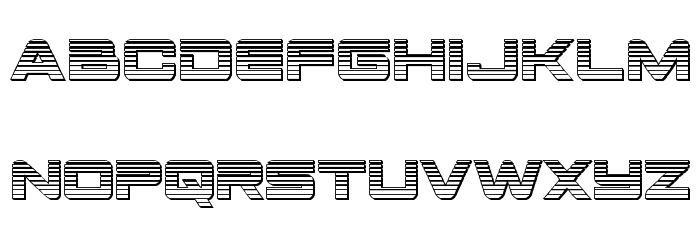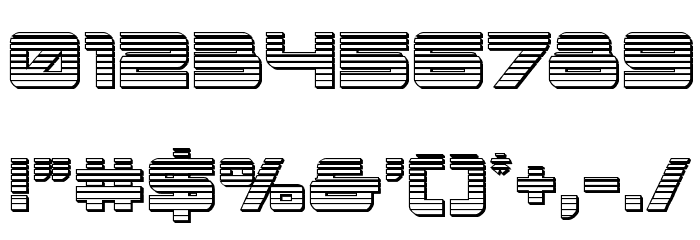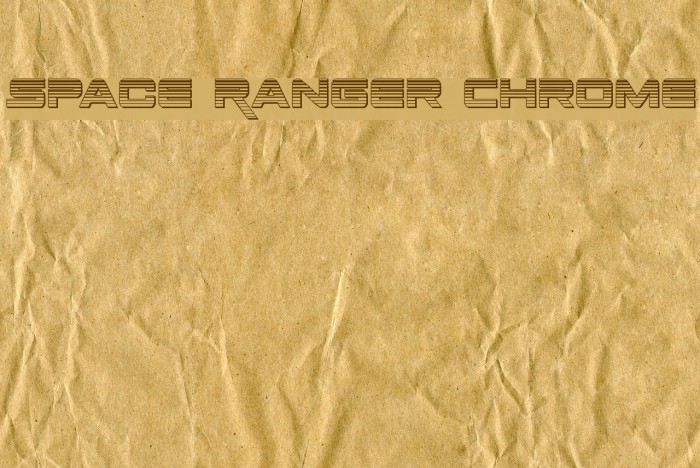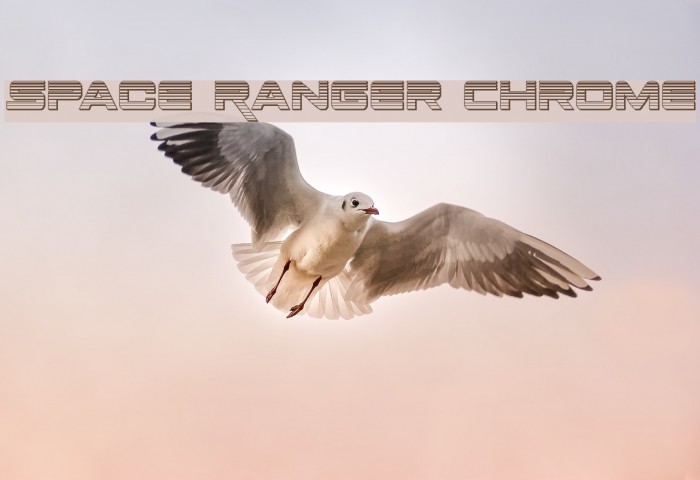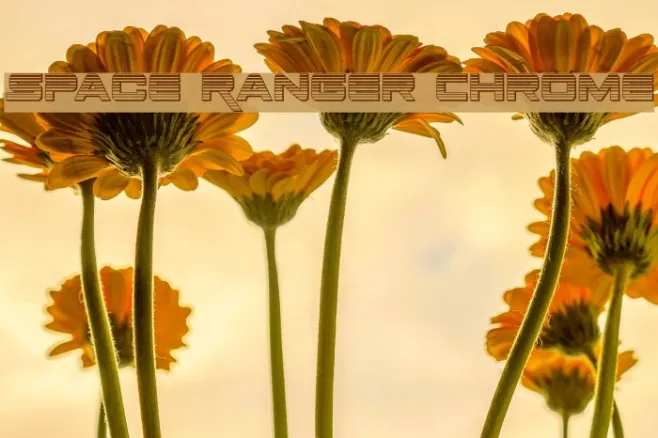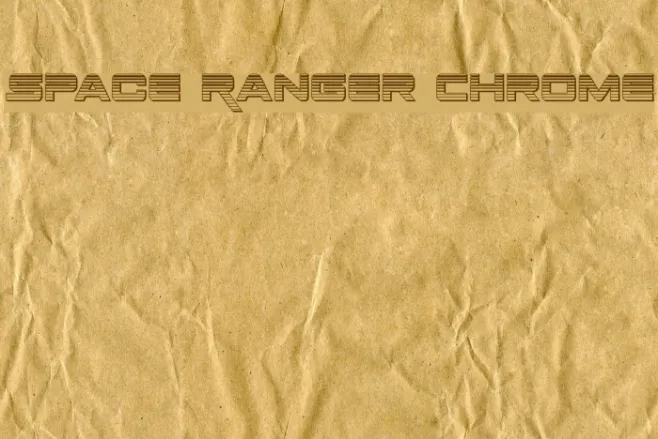
Space Ranger Chrome Font
This font features a futuristic and dynamic design with a distinct chrome-like appearance. The characters are constructed with bold, parallel lines that create a sense of depth and movement. The geometric shapes and sharp angles give it a modern and technological feel, reminiscent of sci-fi aesthetics. The uppercase and lowercase letters maintain a consistent style, while the numerals and special characters complement the overall design. This font is ideal for projects that require a bold and eye-catching look, such as posters, video game titles, or tech-related branding.
A futuristic, chrome-inspired font with bold, parallel lines and geometric shapes.
- Proposed Projects: Ideal for sci-fi posters, video game titles, tech branding, and futuristic designs.
- Overall Style: Futuristic